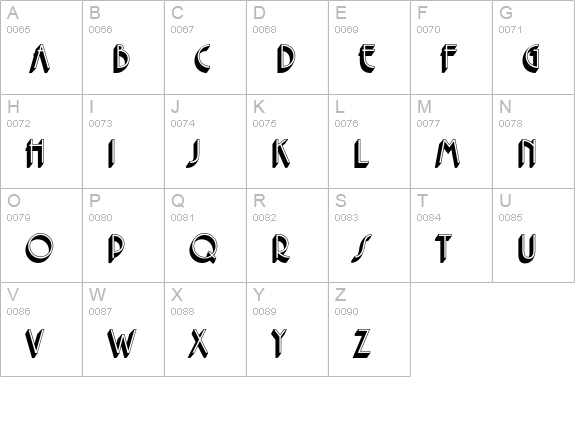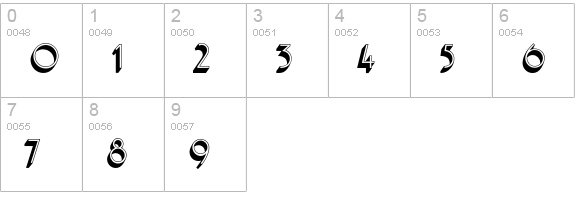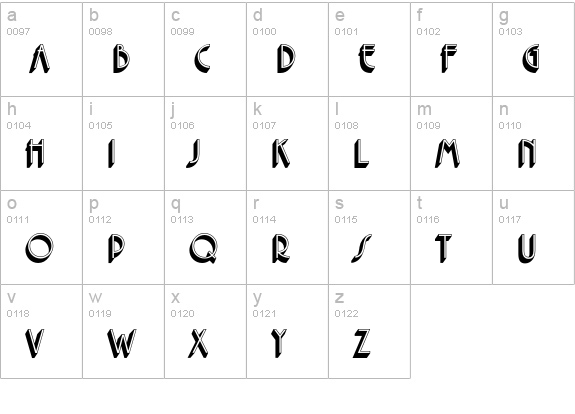
Centralpark Font Details
Centralpark font is a versatile and elegant typeface that exudes a sense of modern sophistication and timeless charm. With its sleek lines and graceful curves, Centralpark is perfect for a wide range of design projects, from branding and packaging to editorial and web design. This font strikes the perfect balance between classic elegance and contemporary flair, making it a versatile choice for designers looking to add a touch of refinement to their work. What sets Centralpark font apart is not only its impeccable design, but also the fact that it is completely free to download. That's right, you can access this stunning font at no cost on FontsMarket.com, making it an accessible option for designers looking to elevate their projects without breaking the bank. So why wait? Download Centralpark font today and bring a touch of sophistication to your next design endeavor.